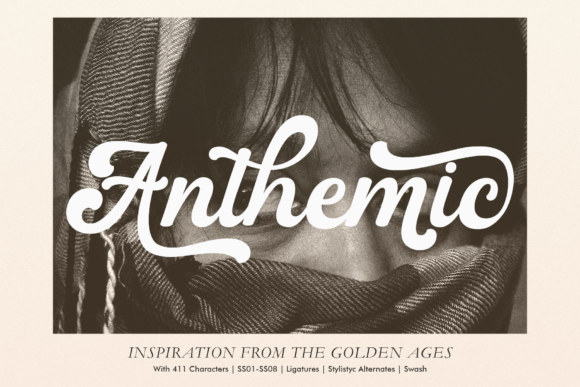
Introducing Arthemic: The Ultimate Vintage-Inspired Typeface for Designers
Are you tired of using the same old fonts in your designs? Do you want to add a touch of nostalgia and uniqueness to your work? Look no further than Arthemic, a vintage-inspired typeface that combines the charm of old-school aesthetics with the dynamic energy of classic baseball fonts. In this article, we’ll dive into the features and benefits of Arthemic, and explore how it can elevate your designs to the next level.
The Inspiration Behind Arthemic
Arthemic is a font that pays homage to the classic typography of the past, while also infusing it with a modern twist. The design team behind Arthemic drew inspiration from the iconic fonts used in baseball and sports branding, as well as vintage posters and signage. The result is a font that exudes a sense of retro Americana, perfect for designers who want to evoke a sense of nostalgia and timelessness in their work.
Key Features of Arthemic
Arthemic is more than just a font – it’s a comprehensive design tool that offers a wide range of features and customization options. Here are some of the key features that make Arthemic stand out:
- 411 characters: Arthemic comes with an extensive set of 411 characters, providing designers with a vast range of design possibilities.
- Stylistic alternates: Arthemic features stylistic alternates, which allow designers to swap out letters and words with alternate versions, creating a unique and customized look.
- Ligatures and swashes: Arthemic includes ligatures and swashes, which add a touch of elegance and sophistication to any design.
- SS01-SS08: Arthemic features eight stylistic sets (SS01-SS08), which provide designers with even more customization options.
Design Applications for Arthemic
Arthemic is a versatile font that can be used in a wide range of design applications. Here are some of the perfect use cases for Arthemic:
- Sports team logos and branding: Arthemic’s classic baseball font style makes it perfect for sports team logos and branding.
- Vintage apparel designs: Arthemic’s retro-inspired aesthetic makes it ideal for vintage-inspired apparel designs.
- Retro-inspired posters and flyers: Arthemic’s bold and dynamic design makes it perfect for creating eye-catching posters and flyers.
- Custom baseball merchandise: Arthemic is a natural fit for custom baseball merchandise, such as jerseys, hats, and more.
- Classic packaging designs: Arthemic’s vintage-inspired design makes it perfect for classic packaging designs that require a touch of nostalgia.
- Signage and storefront displays: Arthemic’s bold and eye-catching design makes it ideal for signage and storefront displays.
- Event invitations with a nostalgic theme: Arthemic is perfect for creating event invitations with a nostalgic theme, such as vintage-themed weddings and parties.
- Typography-focused editorial design: Arthemic’s unique and customizable design makes it perfect for typography-focused editorial design.
- Retro-themed websites and digital graphics: Arthemic is a great choice for retro-themed websites and digital graphics, such as social media graphics and banners.
- Branding projects that require a touch of old-school charm: Arthemic is perfect for branding projects that require a touch of old-school charm and nostalgia.
Why Choose Arthemic?
So why choose Arthemic over other fonts? Here are just a few reasons:
- Unique and customizable: Arthemic offers a high level of customization, making it perfect for designers who want to create unique and eye-catching designs.
- Vintage-inspired aesthetic: Arthemic’s vintage-inspired aesthetic makes it perfect for designers who want to evoke a sense of nostalgia and timelessness in their work.
- Versatile: Arthemic is a versatile font that can be used in a wide range of design applications.
- High-quality: Arthemic is a high-quality font that is designed to deliver exceptional results in any design project.
In conclusion, Arthemic is a unique and versatile font that is perfect for designers who want to add a touch of nostalgia and old-school charm to their work. With its comprehensive set of features, including stylistic alternates, ligatures, swashes, and PUA encoding, Arthemic offers an exceptional level of customization. Whether you’re working on sports team branding, vintage-inspired logos, or nostalgic packaging, Arthemic delivers a timeless look with a modern twist. So why not give Arthemic a try and see how it can elevate your designs to the next level?